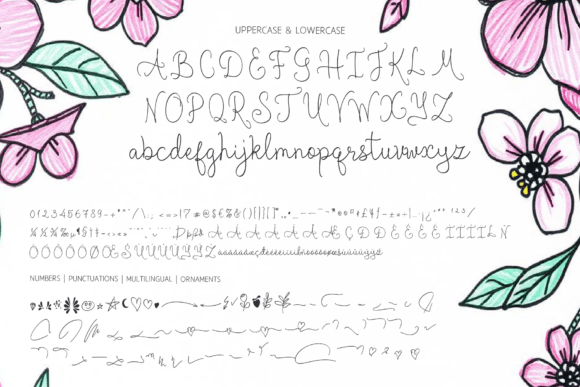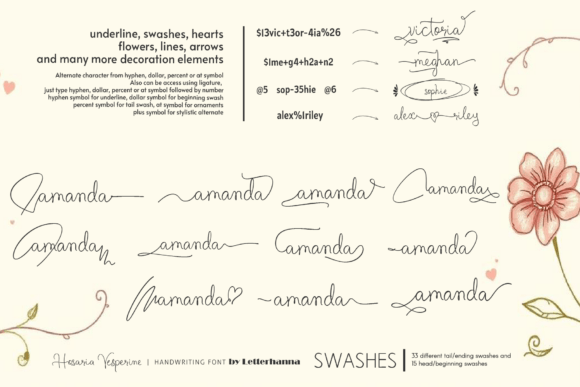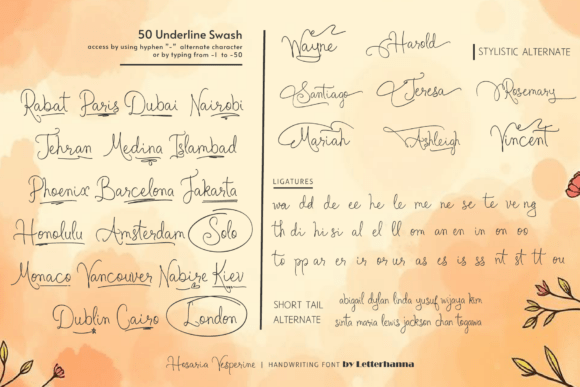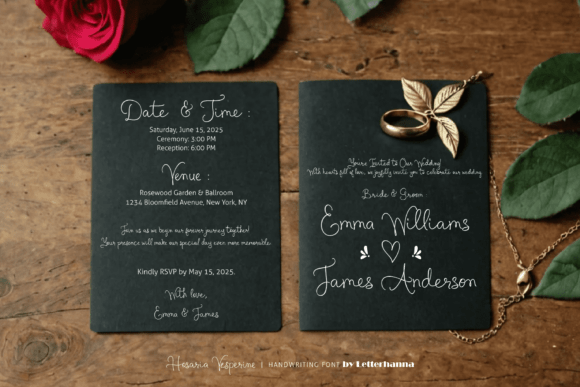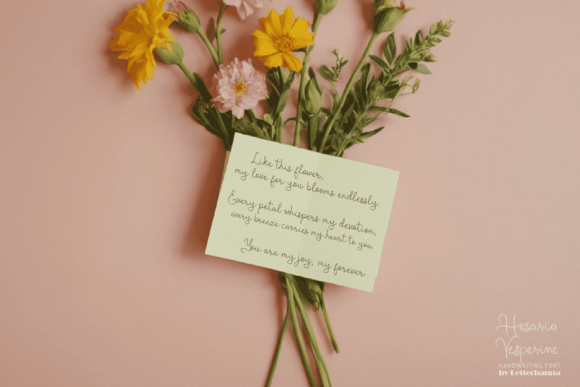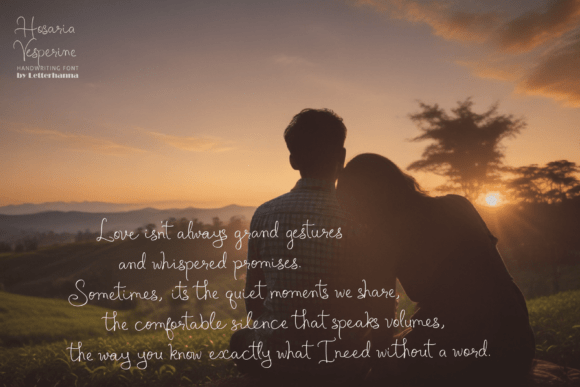
Have you ever sat with a blank page, a pen in hand, and a spark of creativity in your heart? The moment when words start flowing, and your imagination takes over is pure bliss. For designers, it’s a moment of pure joy when a well-crafted font brings their vision to life. That’s exactly what happens when you meet the Hosaria Vesperine Font – a stunning handwriting script that captures the essence of elegance and flair.
Designed with love for detail, this font is packed with features that make every letter dance with personality. From stunning stylistic alternates to luxurious swashes and charming ligatures, the Hosaria Vesperine Font is a designer’s dream come true. Whether you’re crafting wedding invites, branding projects, or heartfelt quotes, this font adds that special something that makes your words feel personal, poetic, and oh-so-beautiful.
Hosaria Vesperine Font Key Features
- Unique Characteristics: Elegant, modern script with flowing connections, suitable for invitations, wedding stationery, and luxury branding
- Font Style: Script, Casual, Elegant
Hosaria Vesperine Font Review
I’ve had the chance to work with the Hosaria Vesperine font, and I must say it’s a unique and intriguing choice. ✨ The font’s elegant and refined aesthetic makes it perfect for high-end branding, luxury goods, or any project that requires a touch of sophistication.
- ✨ Beautiful script-like connections between letters, creating a sense of fluidity.
- ✨ Excellent legibility, even at smaller font sizes.
- ✨ A wide range of weights and styles, offering versatility in design.
However, there are some limitations to consider. ⚠️ The font’s complexity can make it challenging to pair with other fonts, as it can easily overpower or clash with simpler typefaces. Additionally, the font’s script-like connections can be distracting in certain contexts, such as body text or small headings.
Overall, I’d recommend the Hosaria Vesperine font for high-end or luxury projects where its unique aesthetic can shine. While it may not be suitable for every design project, it’s certainly a valuable addition to any designer’s toolkit.
Tips for Getting the Most Out of Hosaria Vesperine Font
1. Use Hosaria Vesperine Font for headings and titles to create a professional and elegant look.
2. Pair Hosaria Vesperine Font with a sans-serif font for body text to create a clean and modern design.
3. Experiment with different font sizes and styles to add depth and visual interest to your design.